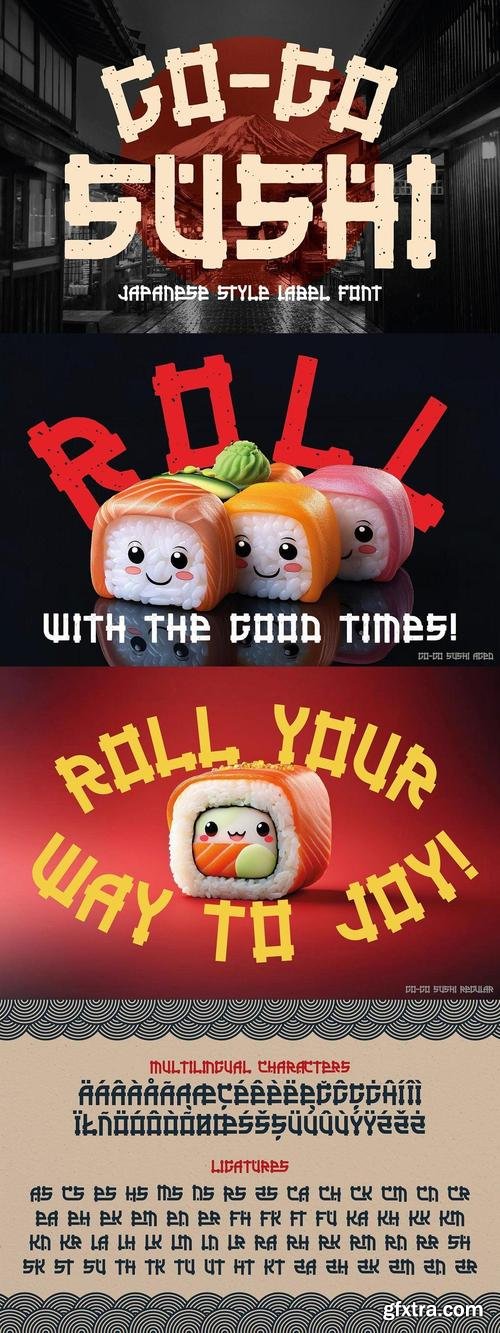
Unique, japanese, bold, retro, ligature, monogram & label sans font. Comes with multilingual support & a lot of ligatures + 2 font versions - great for your new logo, monogram or branding project.
- 2 font versions - regular & aged
- Multilingual support & a lot of ligatures
- Great for your new logo, monogram or branding project